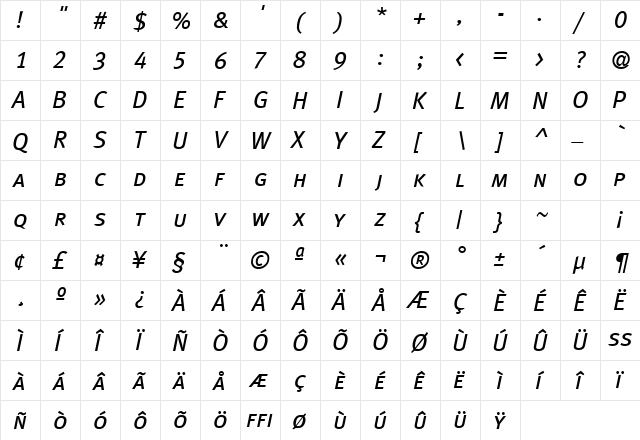
MetaPlusBook-CapsItalic Regular
Design Context for MetaPlusBook-CapsItalic Typeface
MetaPlusBook-CapsItalic is a composed and adaptable typeface that performs quietly and consistently across a wide range of design contexts. Its italic angle brings a sense of urgency and motion to the letterforms.